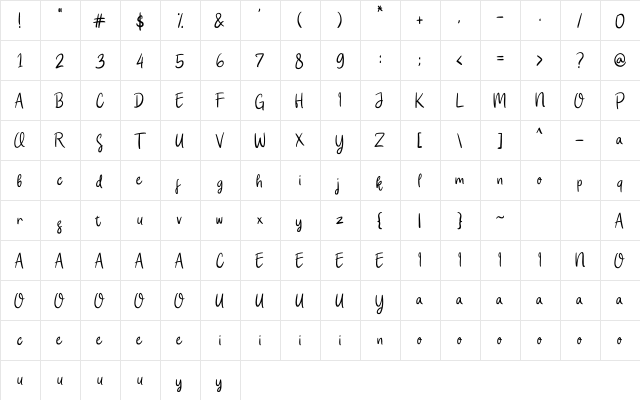
Attaya Regular
| Designer | Iis Syifauarrahmah & Ahmad Syarif Afandi (Peterdraw) |
Design Context for Attaya Typeface
Attaya is a composed and adaptable typeface that performs quietly and consistently across a wide range of design contexts.